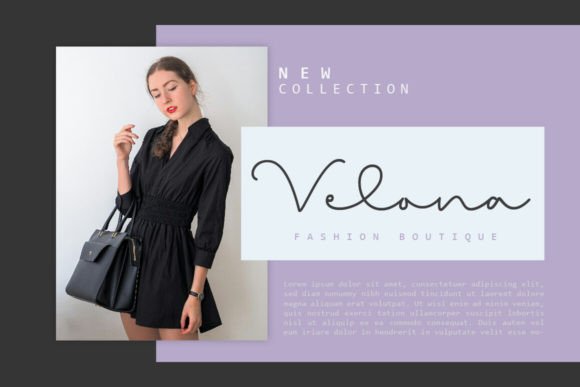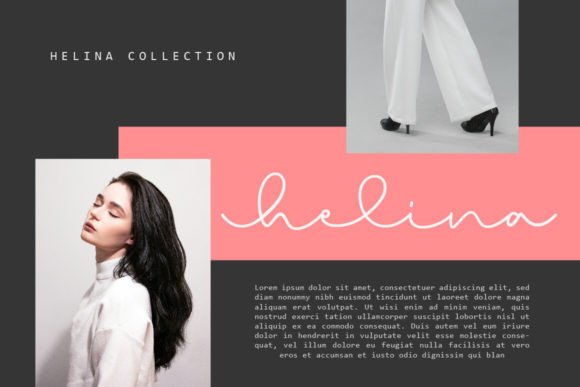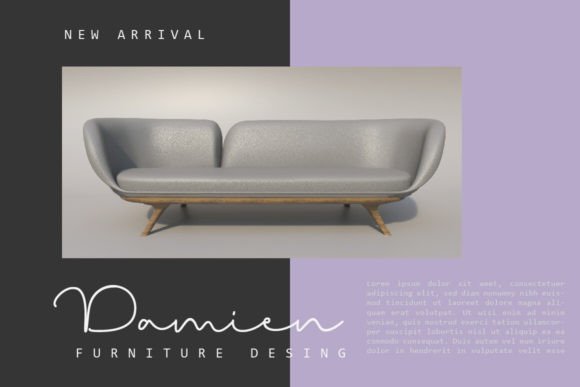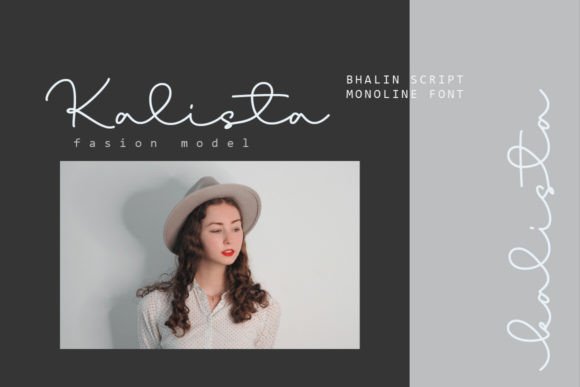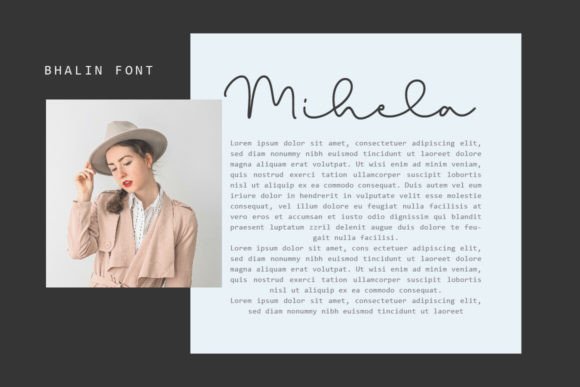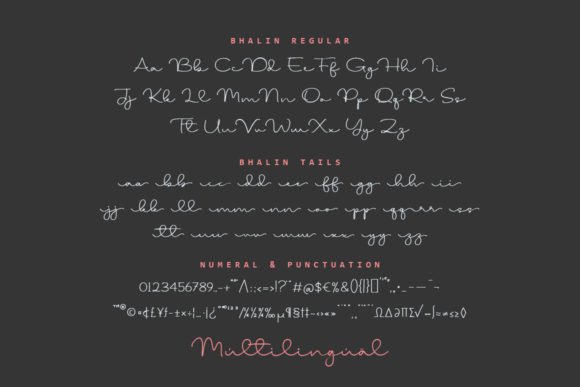
Bhalin Font: Elevate Your Designs with a Natural Handwritten Touch
In the world of typography, fonts play a crucial role in conveying the tone and personality of a design. For crafters, designers, and artists, finding the perfect font can be a daunting task. However, if you’re looking for a monoline handwritten script font that exudes a natural signature style, look no further than Bhalin Font. In this article, we’ll dive into the features, benefits, and uses of Bhalin Font, and explore how it can elevate your designs with its unique charm.
What is Bhalin Font?
Bhalin Font is a beautifully crafted monoline handwritten script font that boasts stunning tails at the beginning and end of each letter. This distinctive feature allows for smooth letter combinations, creating an authentic and natural handwriting appearance. With its lovely tails and fluid connections, Bhalin Font is perfect for designs that require a personal touch.
Key Features of Bhalin Font
- Monoline handwritten script font: Bhalin Font features a single-line construction, giving it a clean and elegant appearance.
- Beautiful tails: The font’s distinctive tails at the beginning and end of each letter create a natural signature style.
- Lovely letter combinations: The tails allow for smooth connections between letters, making it ideal for designs that require a flowing script.
- Natural handwriting appearance: Bhalin Font’s unique features create an authentic, handwritten look that’s perfect for a variety of projects.
Benefits of Using Bhalin Font
Bhalin Font offers numerous benefits for designers, crafters, and artists. Some of the advantages of using this font include:
- Unique and eye-catching designs: Bhalin Font’s distinctive features make it stand out from other fonts, ensuring your designs grab attention.
- Versatility: This font is suitable for a wide range of projects, from branding and advertising to packaging and digital media.
- Ease of use: Bhalin Font is easy to read and works well in various sizes, making it a practical choice for designers.
- Time-saving: With Bhalin Font, you can create stunning designs quickly and efficiently, saving you time and effort.
Uses of Bhalin Font
Bhalin Font’s versatility makes it suitable for various projects, including:
- Branding and logo design: Create a unique and memorable brand identity with Bhalin Font.
- Advertising and marketing materials: Use Bhalin Font to add a personal touch to your ads, brochures, and flyers.
- Packaging design: Add a touch of elegance to your product packaging with Bhalin Font.
- Digital media: Use Bhalin Font in your digital projects, such as social media graphics, blog posts, and website designs.
- Crafting and scrapbooking: Bhalin Font is perfect for crafters and scrapbookers looking to add a personal touch to their projects.
Tips for Using Bhalin Font
To get the most out of Bhalin Font, follow these tips:
- Experiment with font sizes: Bhalin Font works well in various sizes, so experiment to find the perfect fit for your design.
- Pair with complementary fonts: Combine Bhalin Font with other fonts to create a unique and visually appealing design.
- Use in combination with images: Add an extra layer of depth to your design by combining Bhalin Font with images or illustrations.
| Font Name | Bhalin Font |
| Author | Typebae |
Bhalin Font is a stunning monoline handwritten script font that offers a natural signature style, making it perfect for designs that require a personal touch. With its unique features, versatility, and ease of use, Bhalin Font is an excellent choice for designers, crafters, and artists. Whether you’re working on branding, advertising, packaging, or digital media projects, Bhalin Font is sure to elevate your designs and make them stand out.